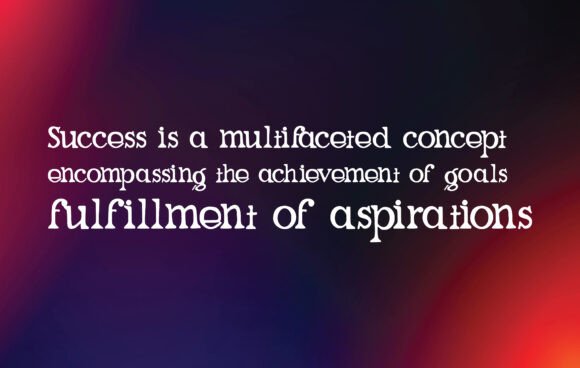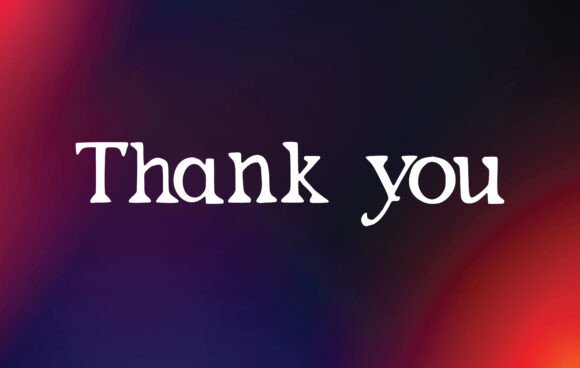
Introduction to Murray Font
Murray is a lovely and beautiful font.
Why Choose Murray Font?
Murray Font offers exceptional quality and versatility, making it a valuable addition to your design toolkit. Whether you’re creating for personal projects or commercial use, Murray Font delivers professional results.